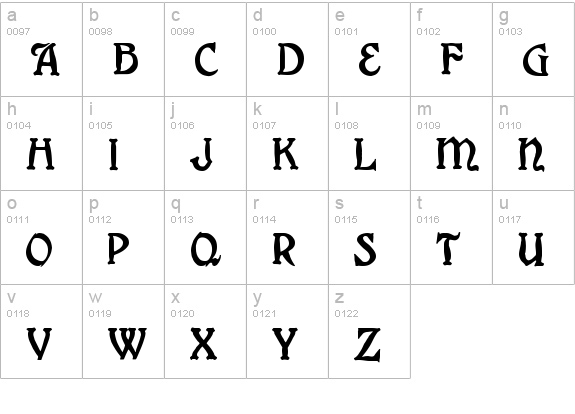
Grange MF Font Details
Grange MF font exudes elegance and sophistication with its timeless serif design. This versatile typeface strikes the perfect balance between traditional and modern, making it suitable for a wide range of projects. The sharp, clean lines and delicate curves of Grange MF lend a sense of refinement and class to any text it adorns. What sets Grange MF apart is not just its aesthetic appeal, but also its accessibility. This exquisite font is available for free download at FontsMarket.com, allowing designers and creatives to effortlessly incorporate its beauty into their work. Whether used for branding, editorial design, or any other creative endeavor, Grange MF is sure to make a lasting impression. Embrace the elegance and sophistication of Grange MF font today, and elevate your designs with this exceptional typeface that is both timeless and free to use.